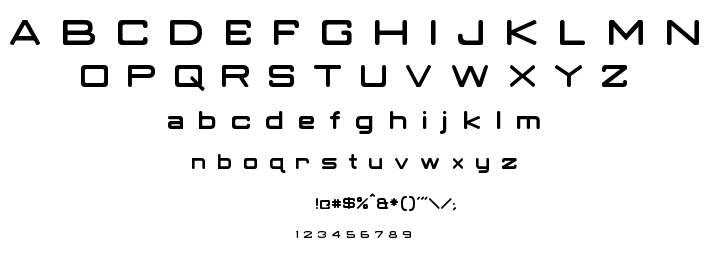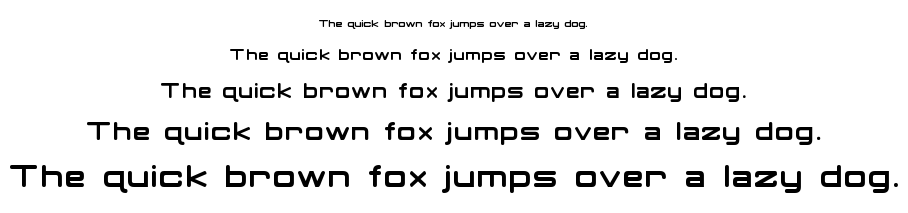
Based on a variety of technology-based gaming, toy, and movie franchises, “Classic Robot” is a sleek looking decorative font with a strong science-fiction flare.